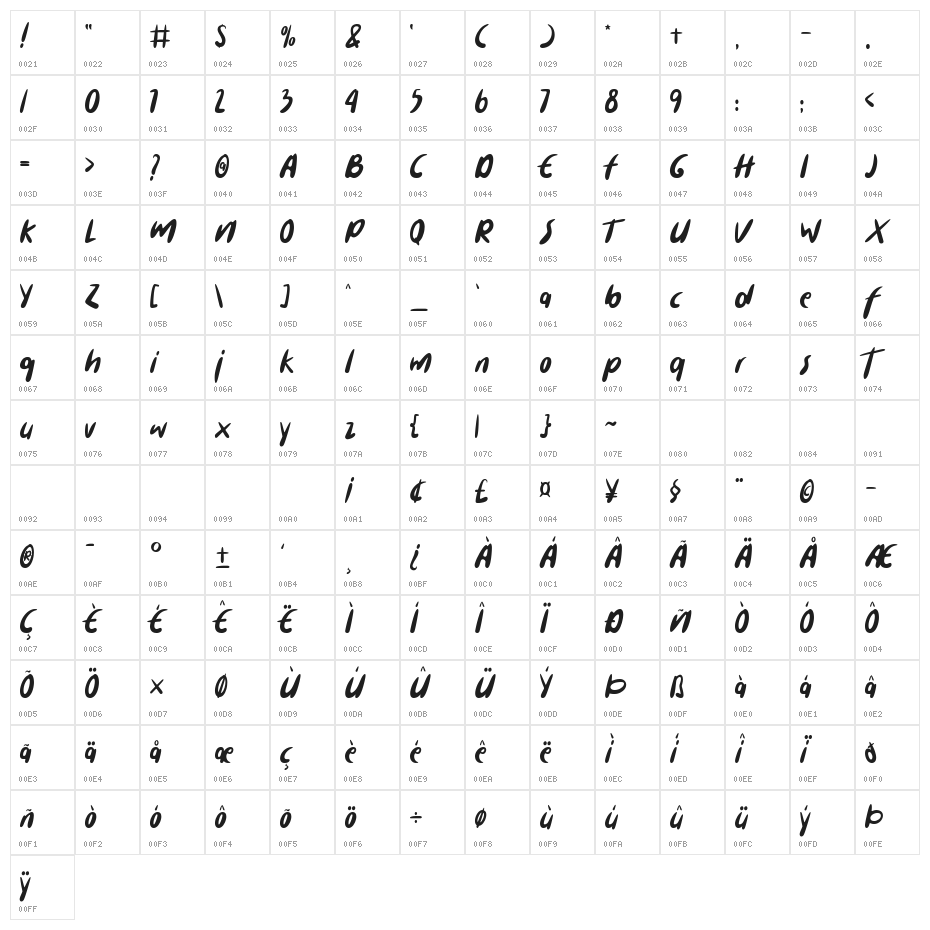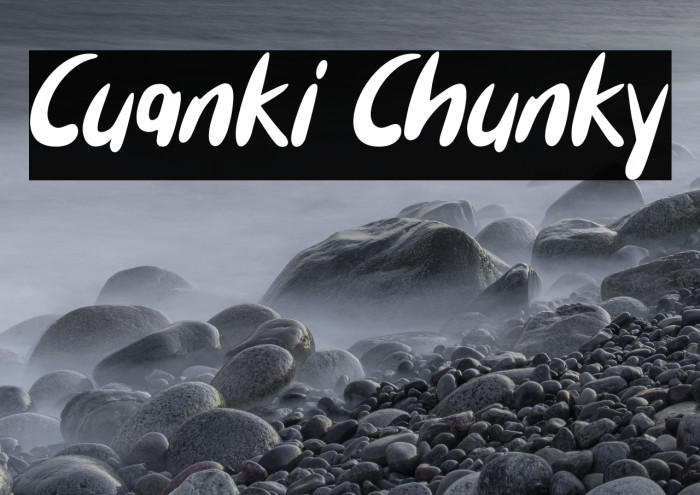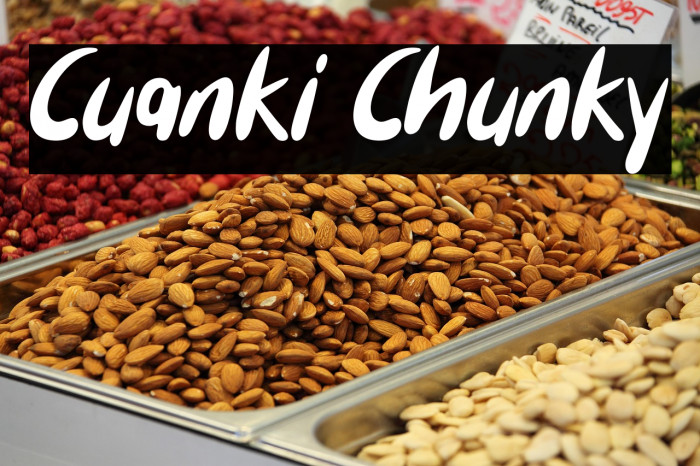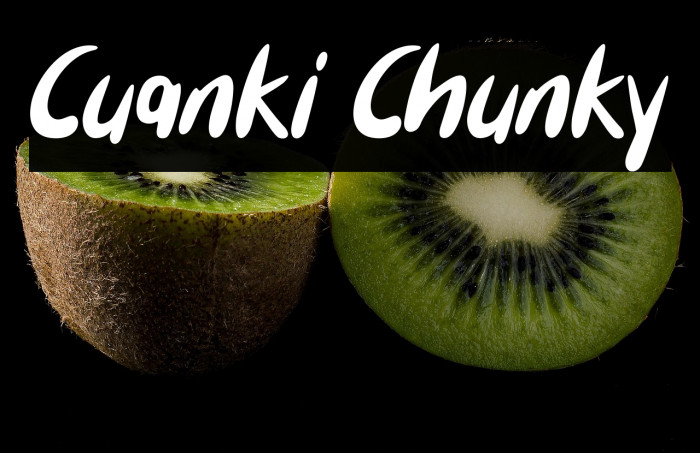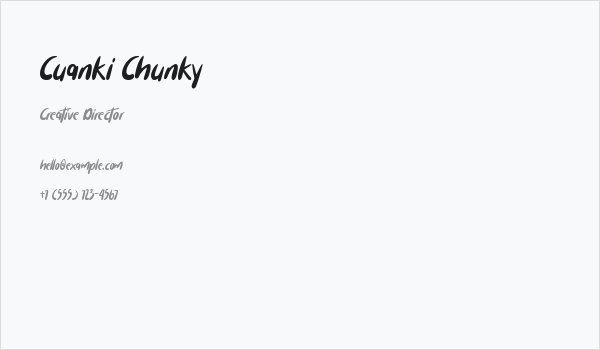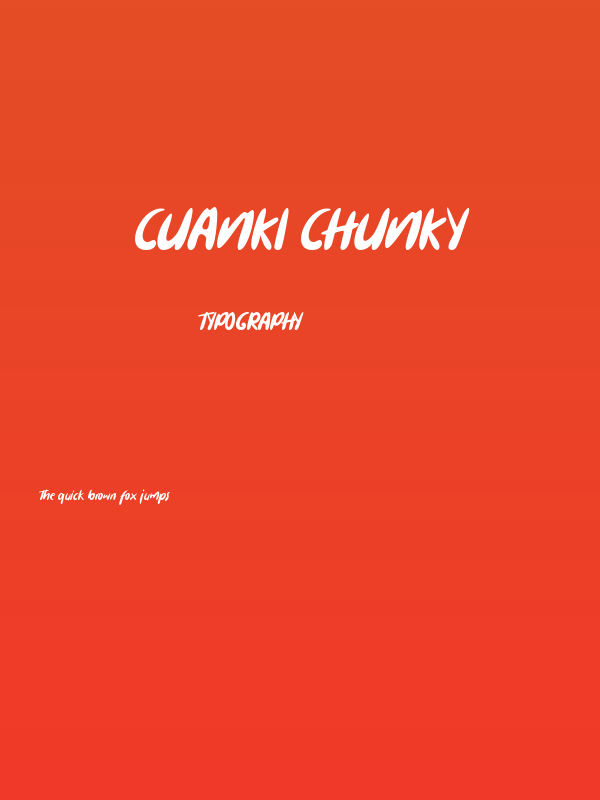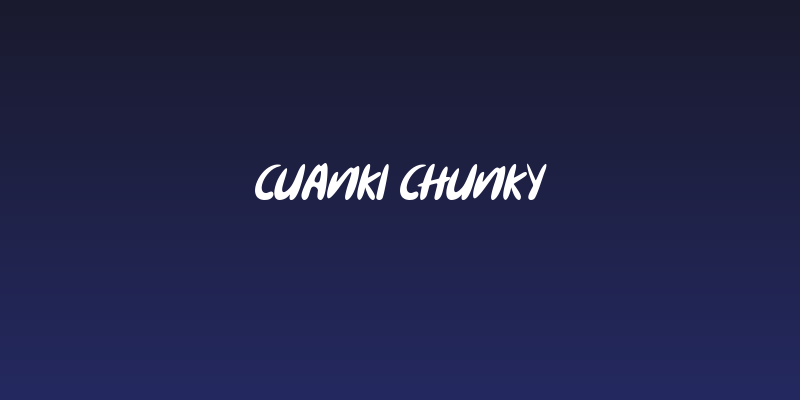
Cuanki Chunky Font
Cuanki Chunky Description
This font features a bold and dynamic script style with a playful and energetic character. The letters are thick and rounded, giving a chunky appearance that is both eye-catching and approachable. The strokes are smooth and fluid, creating a sense of movement and liveliness. The uppercase and lowercase letters maintain a consistent style, with a slight slant that adds to the casual and informal feel. The numbers and special characters are designed to match the overall aesthetic, ensuring a cohesive look across all text elements. This font is ideal for projects that require a fun and engaging typeface.
| Proposed Projects | Perfect for branding, posters, social media graphics, and children's book covers. |